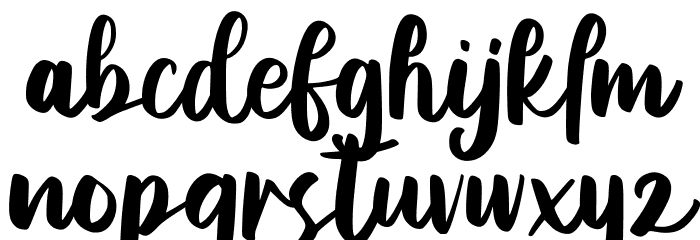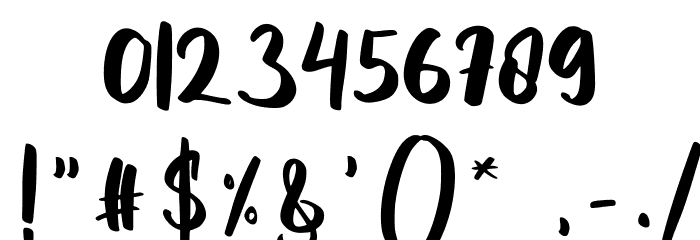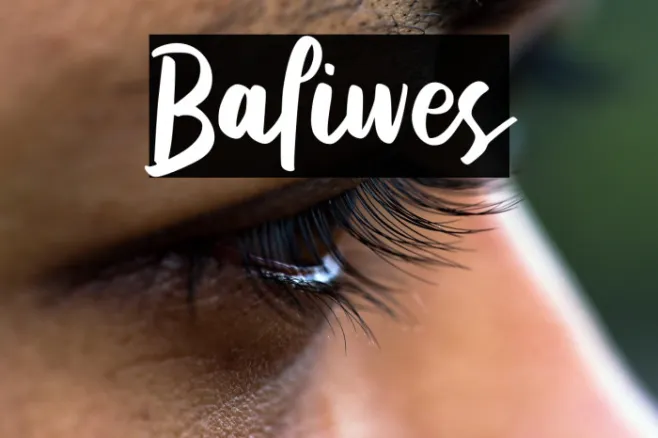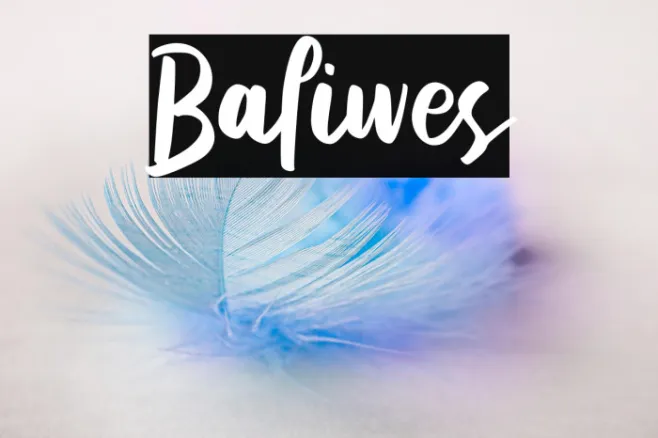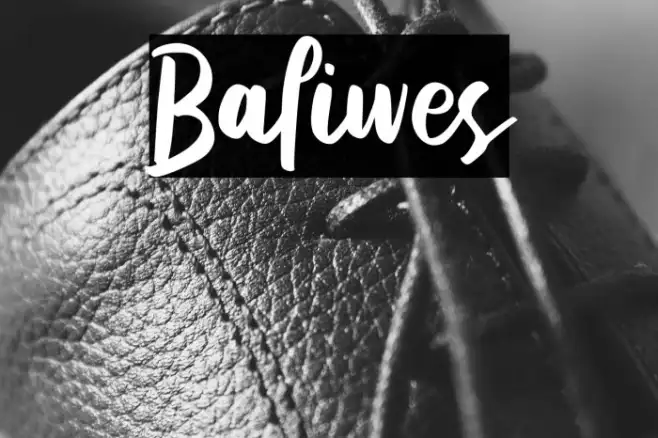
Baliwes Font
This font features a bold and expressive handwritten style, characterized by its fluid and dynamic strokes. The letters are slightly slanted, adding a sense of movement and energy. The uppercase and lowercase letters maintain a consistent style, with rounded edges and varying stroke widths that create a lively and informal appearance. The numerals and special characters are designed to match the playful and casual aesthetic, making this font suitable for creative and artistic projects.
A bold, expressive handwritten font with fluid strokes and a playful style.
- Font: Baliwes
- Proposed Projects: Ideal for greeting cards, invitations, posters, and branding materials that require a personal and artistic touch.
- Category: Handwritten
- Use Case: Logos, Headlines, Creative projects